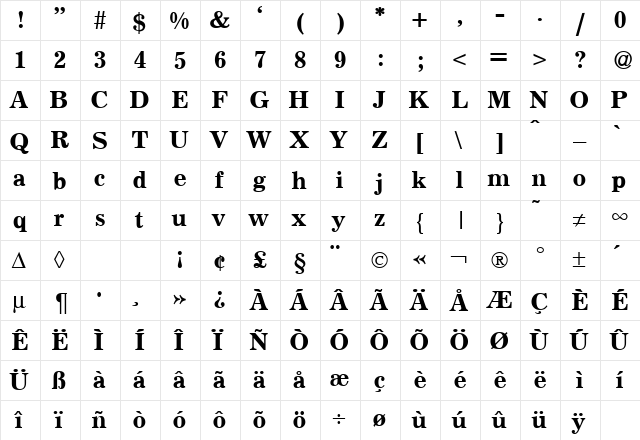
Pristine Regular
Design Context for Pristine Typeface
Pristine offers clean, dependable letterforms without strong stylistic allegiance, making it a practical choice for designers who need flexibility.
Pro Tip: Pair Pristine with a font of contrasting weight or personality to build a more expressive typographic hierarchy.